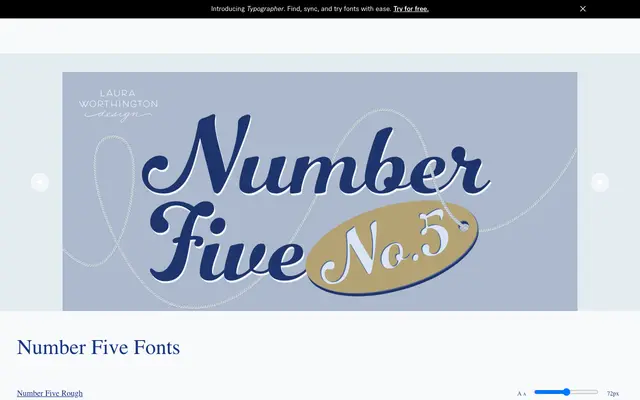
Number Five
A bold casual script in two textures — Rough and Smooth — drawing on 1940s and 1950s American hand-lettering traditions for titling and display use.
Offered in Rough and Smooth variants, this connected script carries the easy confidence of mid-century American signage and editorial lettering. A large alternate library of 433 glyphs includes unconnected letter options, swash capitals and 10 ornaments, giving considerable flexibility for logo and display applications. OpenType features are coded to remain accessible without professional design software.
A connected casual script with an informal, hand-lettered character evoking mid-century American signage and lettering traditions. The availability of unconnected letter alternates does not alter its primary classification as a casual script.